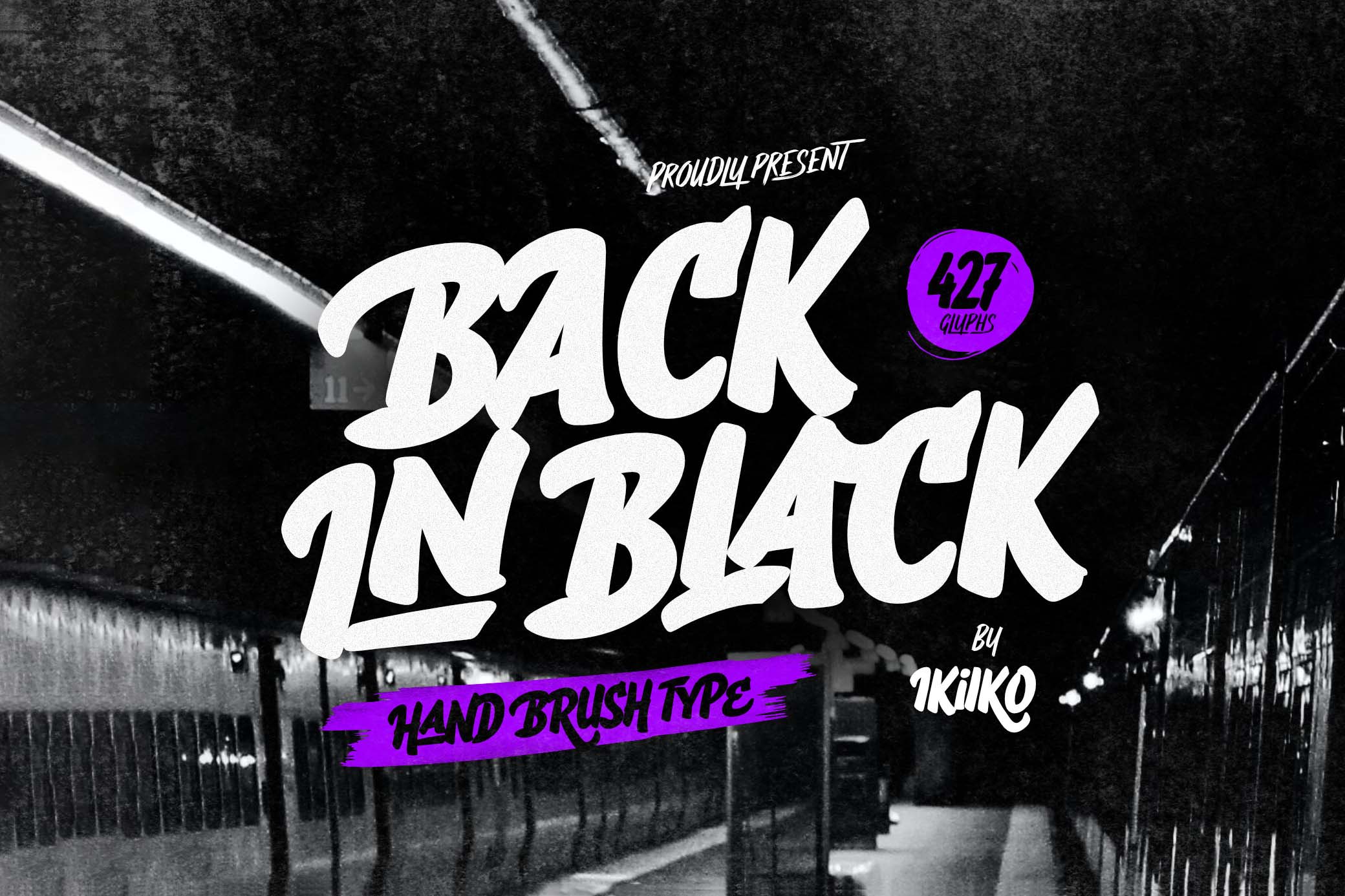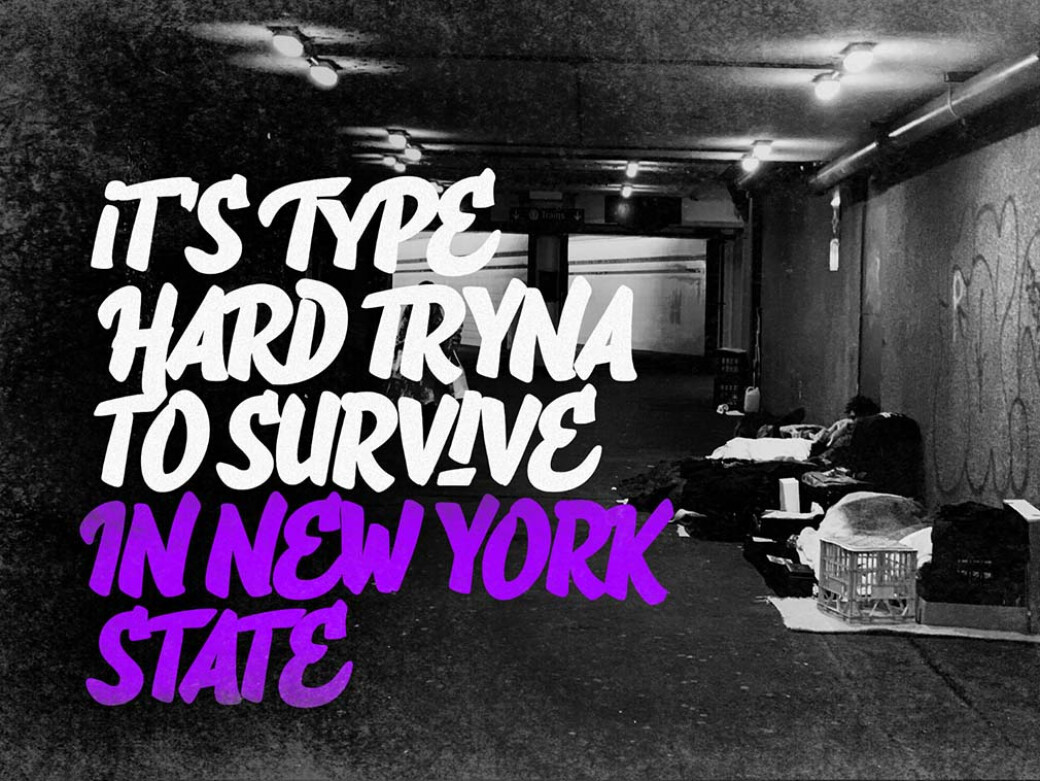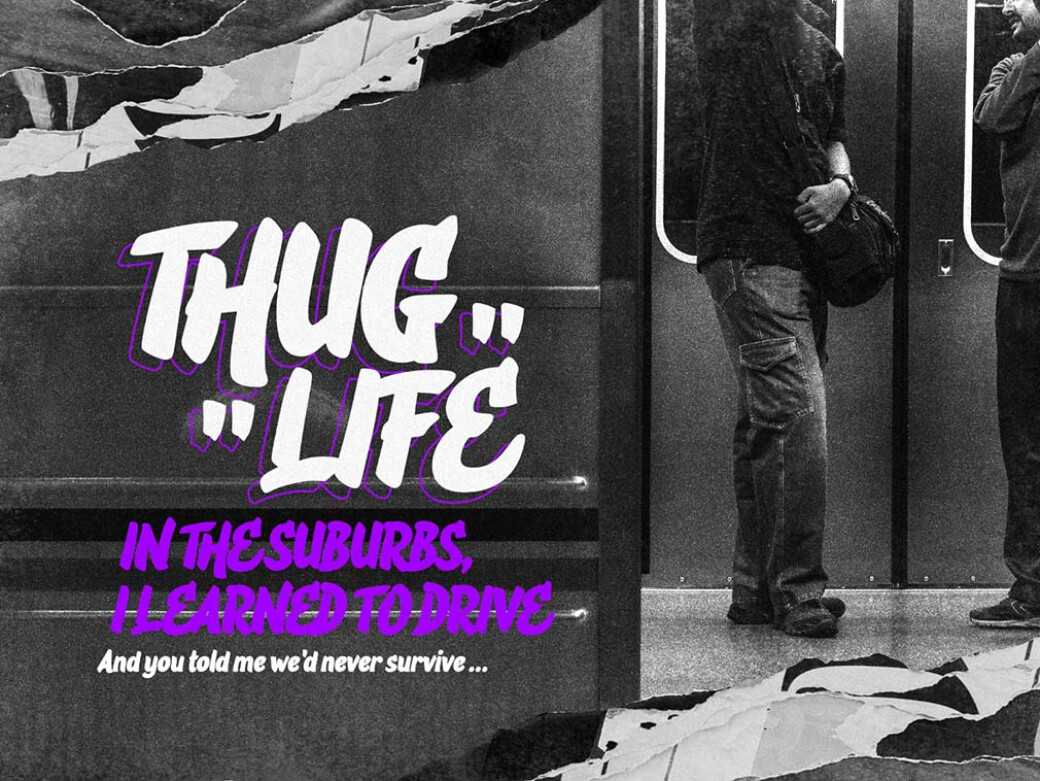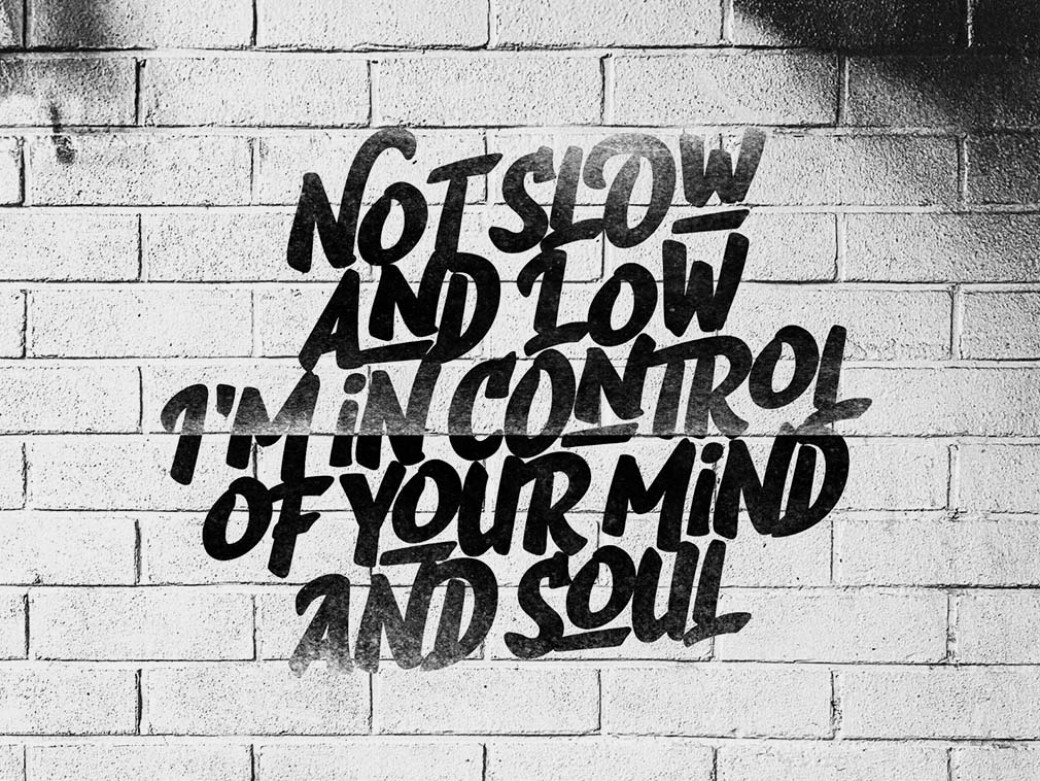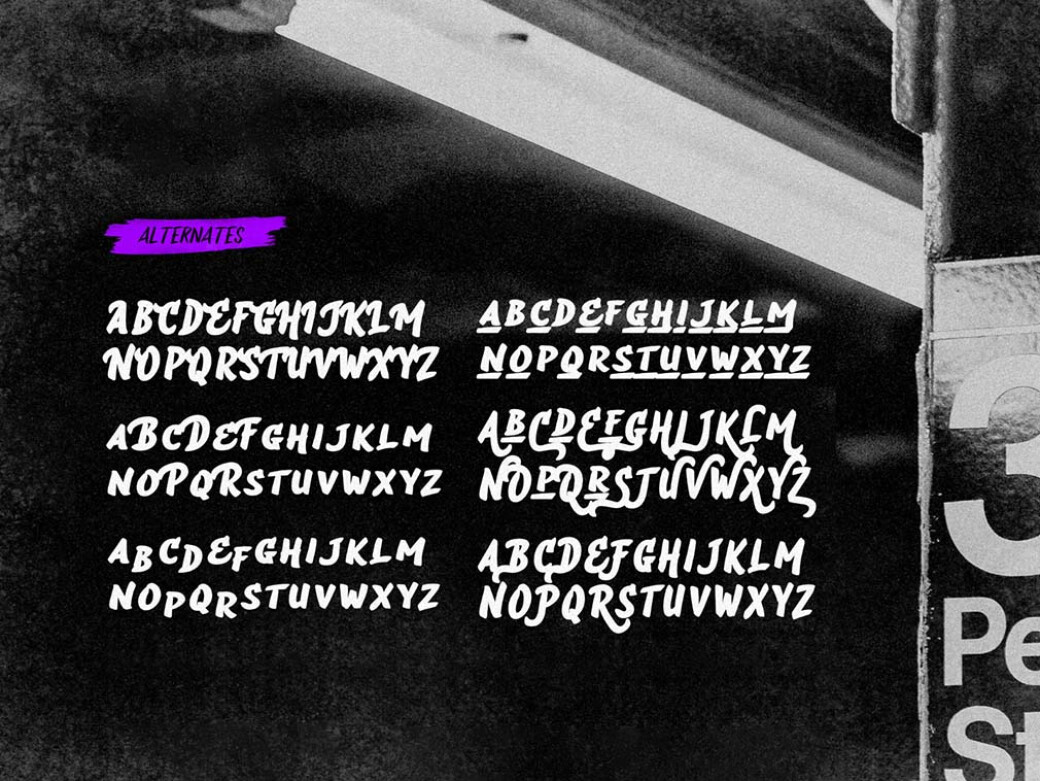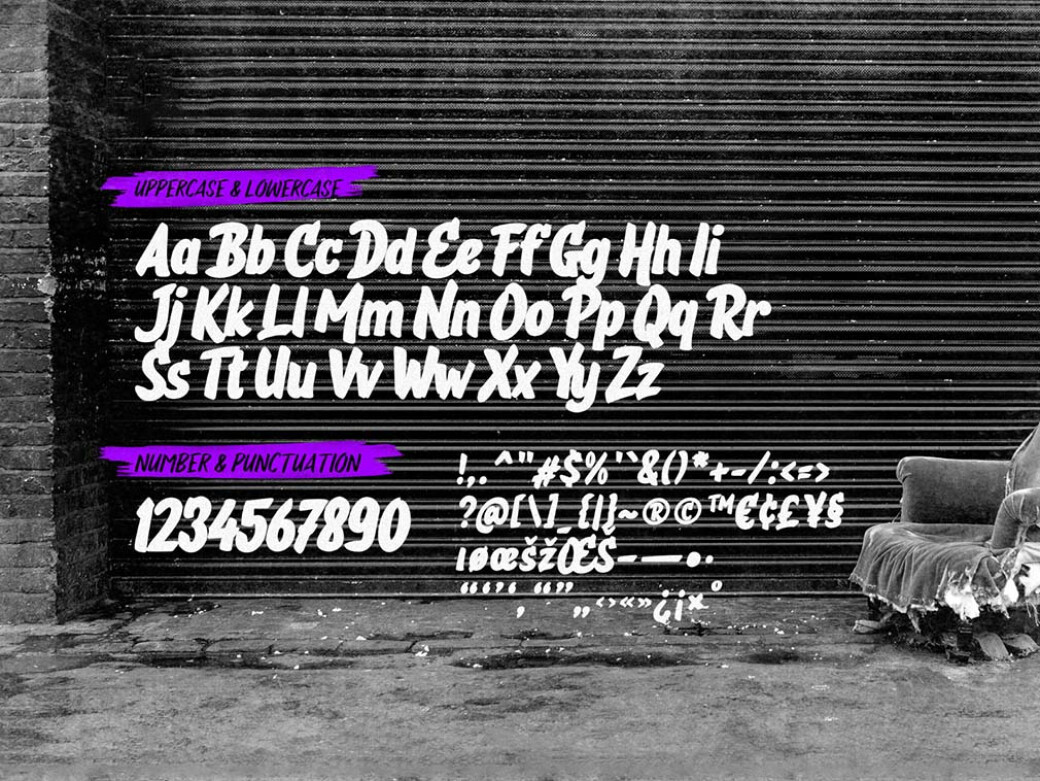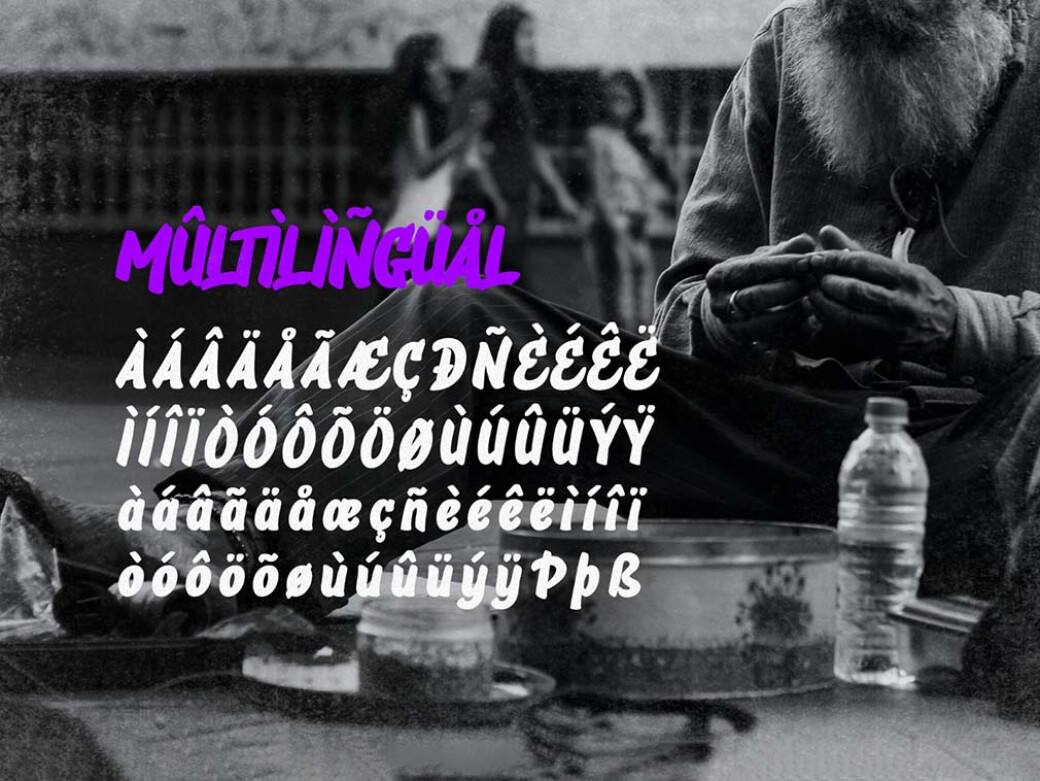
Back in Black Brush Font
This font screams rebellion, like the lyrics of Amy Winehouse's "Back to Black". Its style mirrors this song's raw emotion, which you can feature in your designs too.Delving deeper, Back in Black channels a strong, rebellious streak. Its hand-brushed strokes radiate the essence of 'the beautiful chaos,' similar to groundbreaking graffiti art. This edgy characteristic makes it perfect for projects that aim to make an assertive statement: whether it's used in posters, prints, or anywhere else. You will find a complete set of characters, including stylistic alternates, ligatures, and multilingual support.